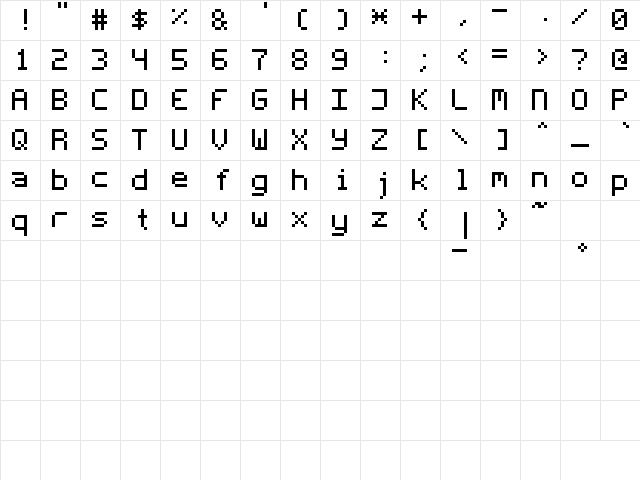
Fleftex Monospace
Design Context for Fleftex Typeface
Fleftex uses fixed-width spacing throughout, giving it the structured, systematic character associated with coding environments and technical documentation.
Well-suited to data-driven dashboards, coding tutorials, and any design that wants to reference the world of programming.
Pro Tip: Use Fleftex with slightly increased line-height for extended reading — fixed-width spacing can feel dense in longer passages without extra breathing room.